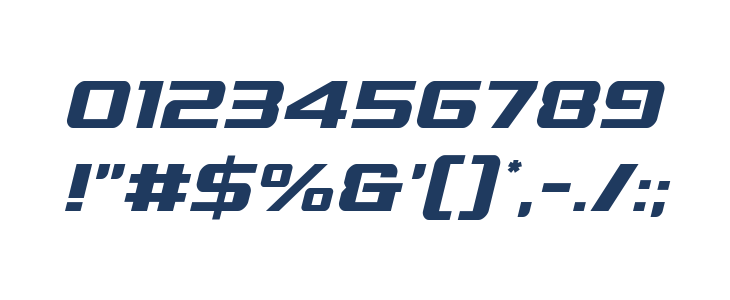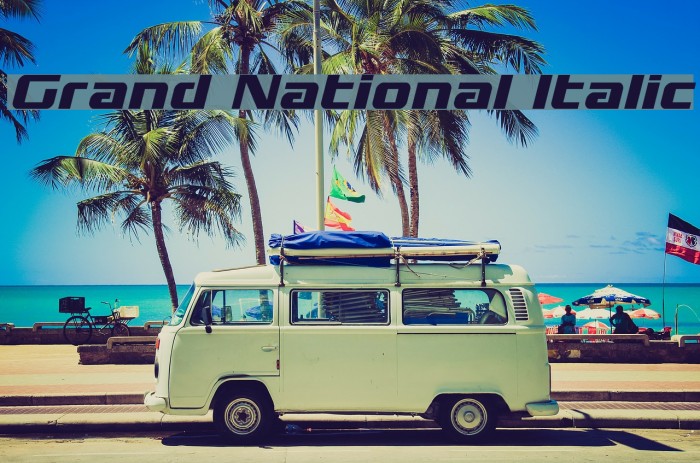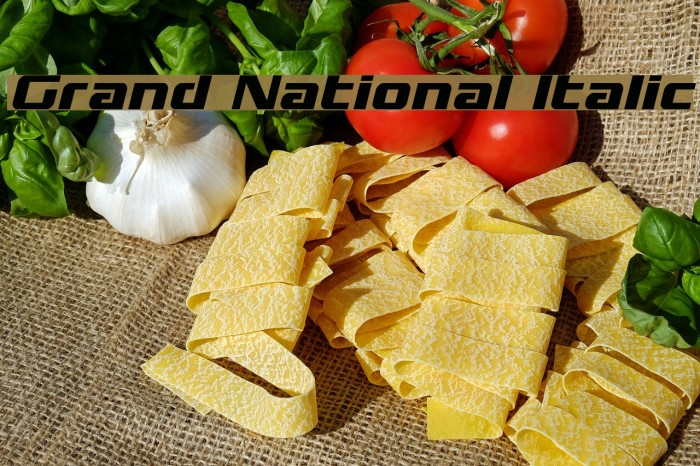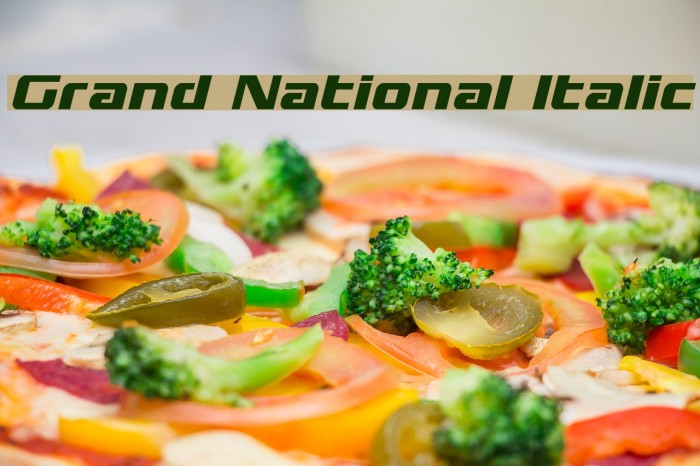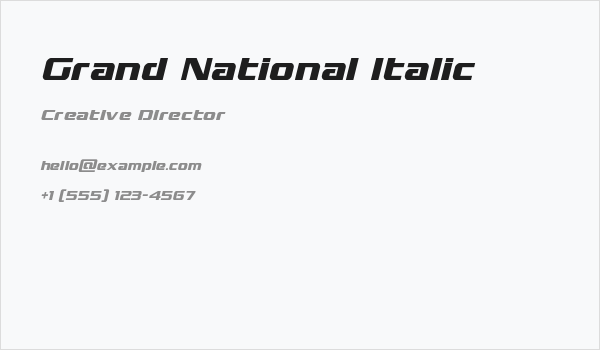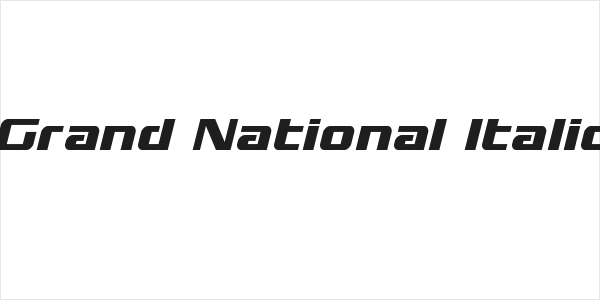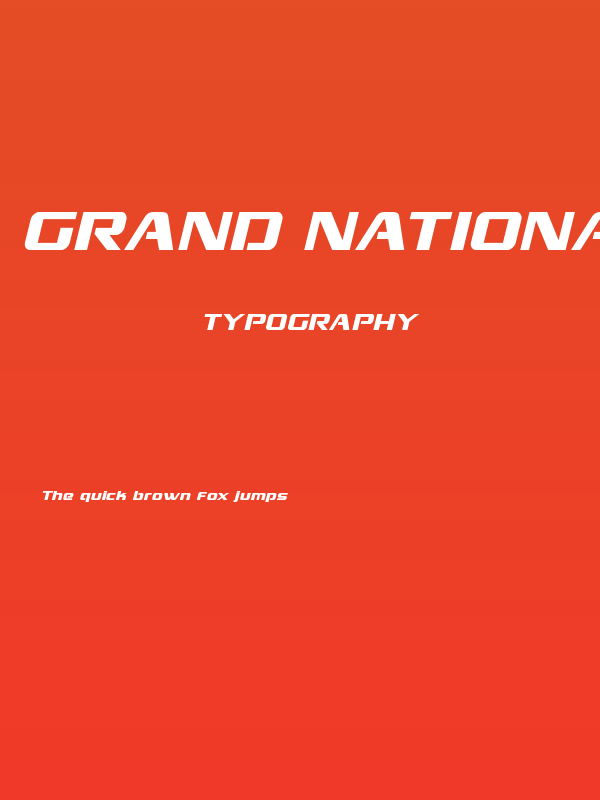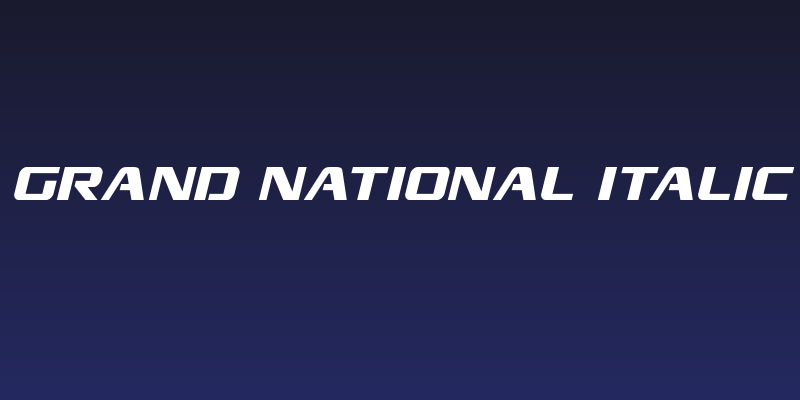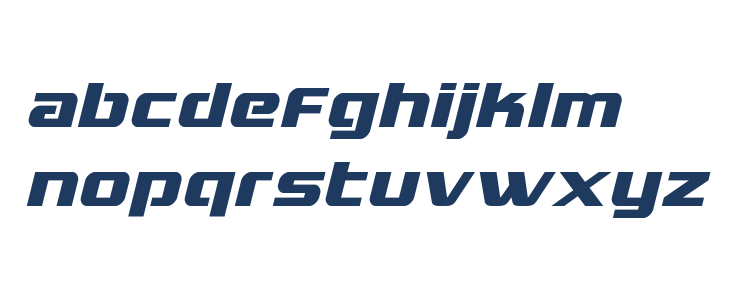
Grand National Italic Font
Grand National Italic Description
This font features a dynamic and modern italic style with a strong geometric influence. The characters are slightly slanted, giving a sense of motion and speed. The uppercase letters are bold and angular, while the lowercase letters maintain a consistent flow with rounded edges. The numerals are distinct and easy to read, complementing the overall style. Special characters are well-integrated, maintaining the font's cohesive look. The design is clean and versatile, suitable for various applications that require a contemporary and energetic feel.
| Use Case | Logos, Headlines, Branding |
| Proposed Projects | Ideal for branding, sports team logos, automotive designs, and dynamic advertising materials. |